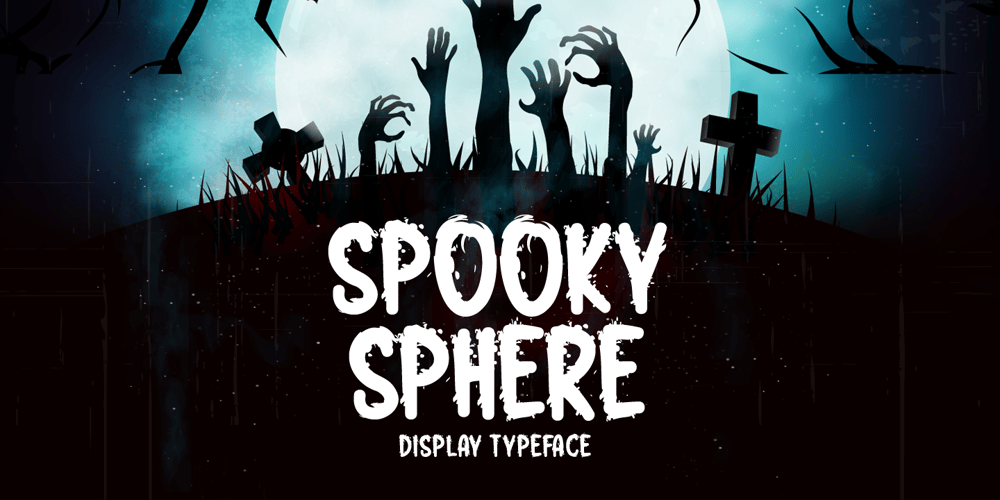
Spooky Sphere Font Family was designed by Md Shohail Bhuian and published by Seemly Fonts. Spooky Sphere contains 1 styles and family package options. Spooky Sphere is a cool and scary display font. This font is incredibly suitable for each of your Halloween designs or October decorations. The only limit is your imagination!